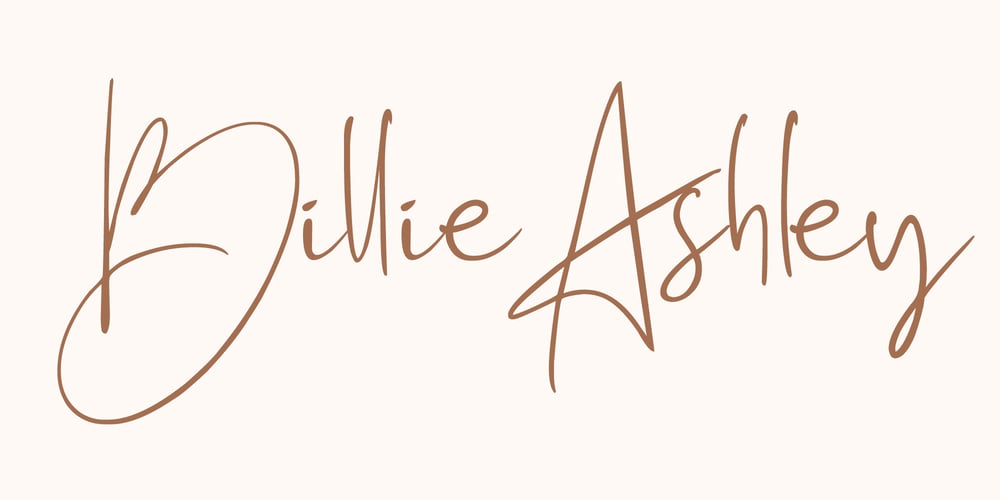
Billie Ashley
Billie Ashley font
Billie Ashley Font Family was designed by SU KASIH and published by Mozatype. Billie Ashley contains 1 styles and family package options. Billie Ashley Handwritten Font is stylish calligraphy font. We made this font with manual handwritting. Billie Ashley is modern script handwritten style. Billie Ashley perfect for branding, signatures, wedding invites and cards, and anymore projects.Billie Ashley Handwritten Font includes all glyphs uppercase , lowercase, numeral, punctuation, mulitingual and ligatures.What’s Included :– Works on PC & Mac– Easy to use ( Installations )– Easy Convert to webfont– Compabilty Windows, Apple, Linux, Cricut, Silhouette and Other cutting machinesThanks for downloading, and I hope you enjoy it!